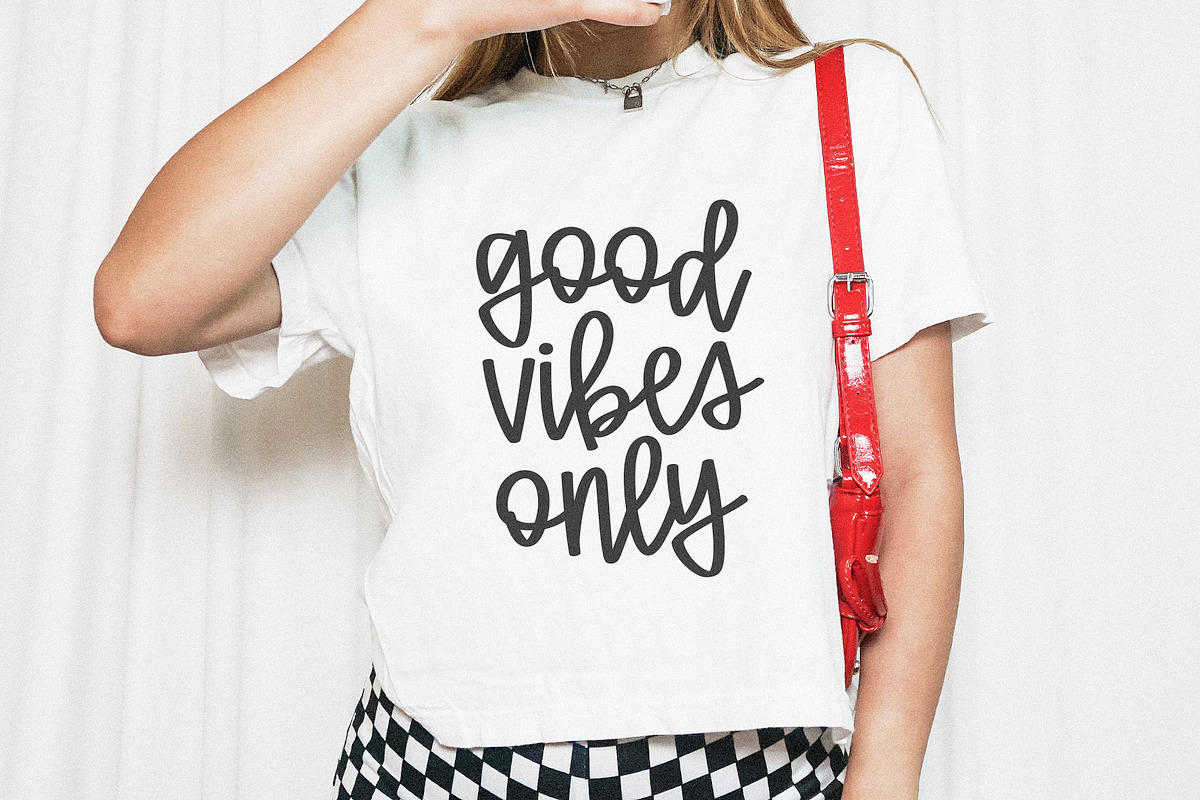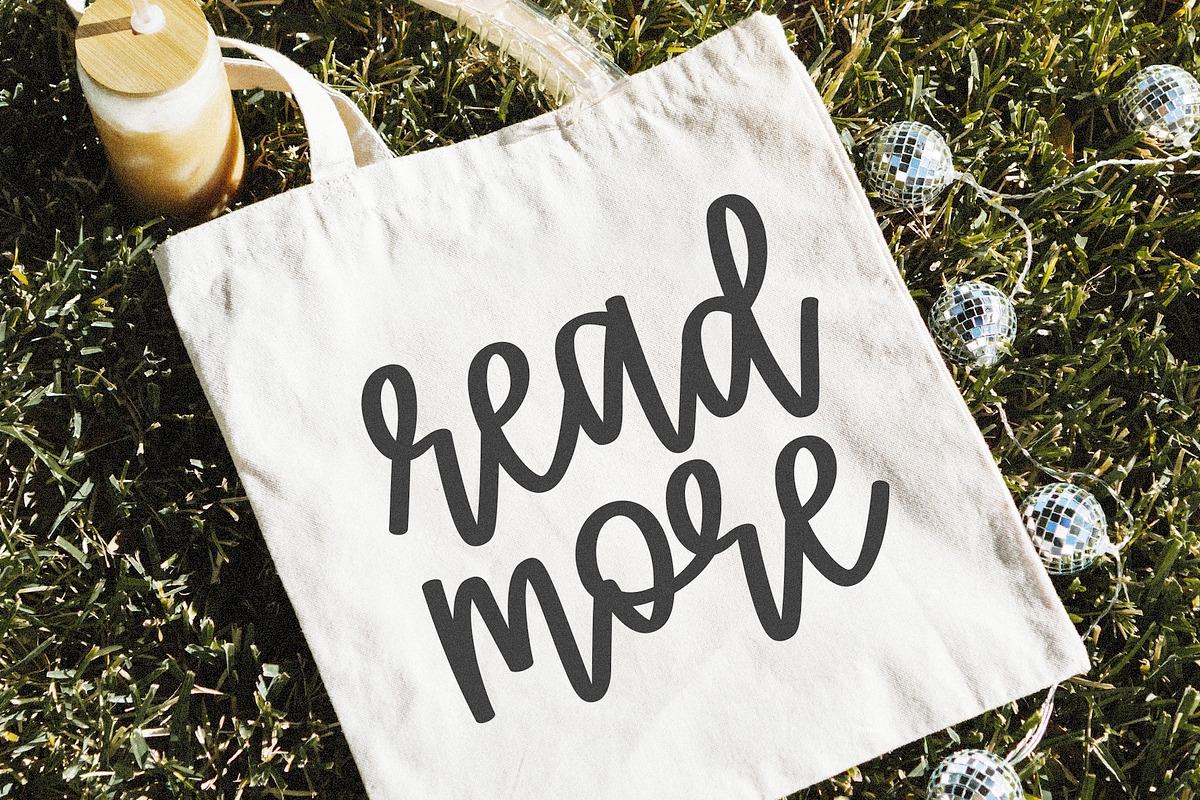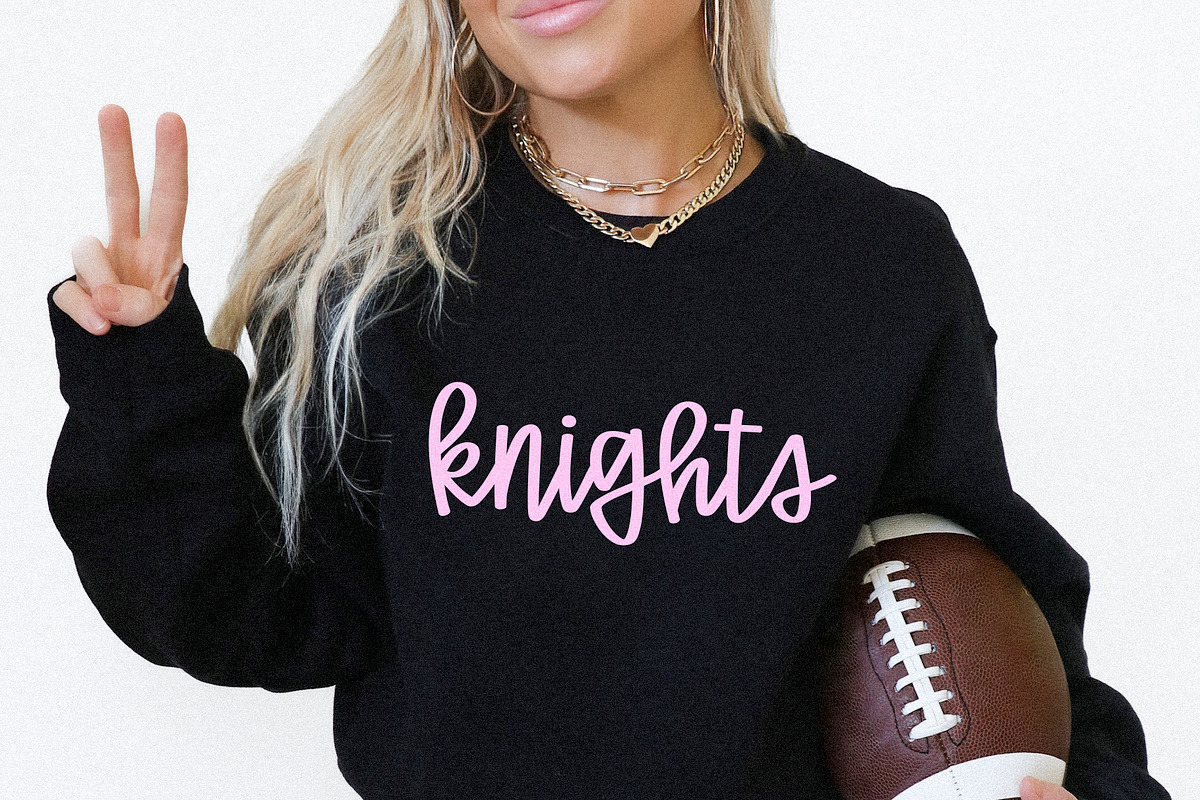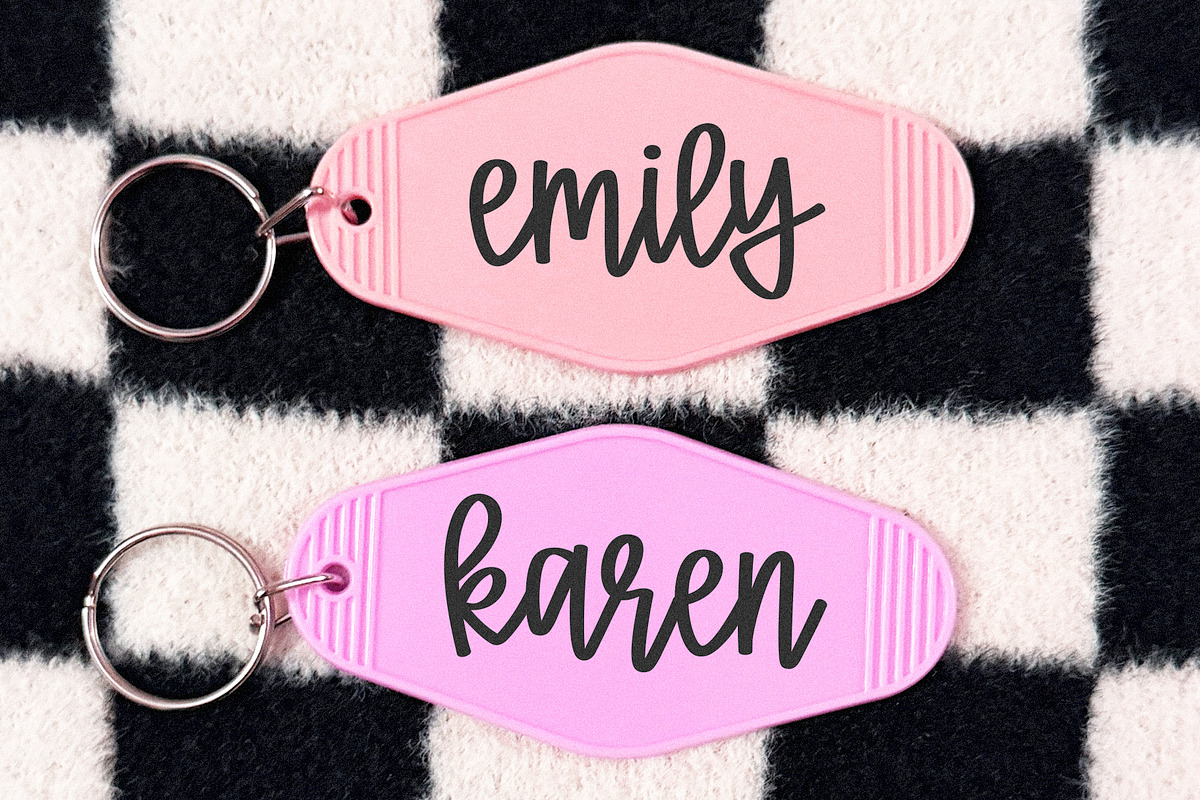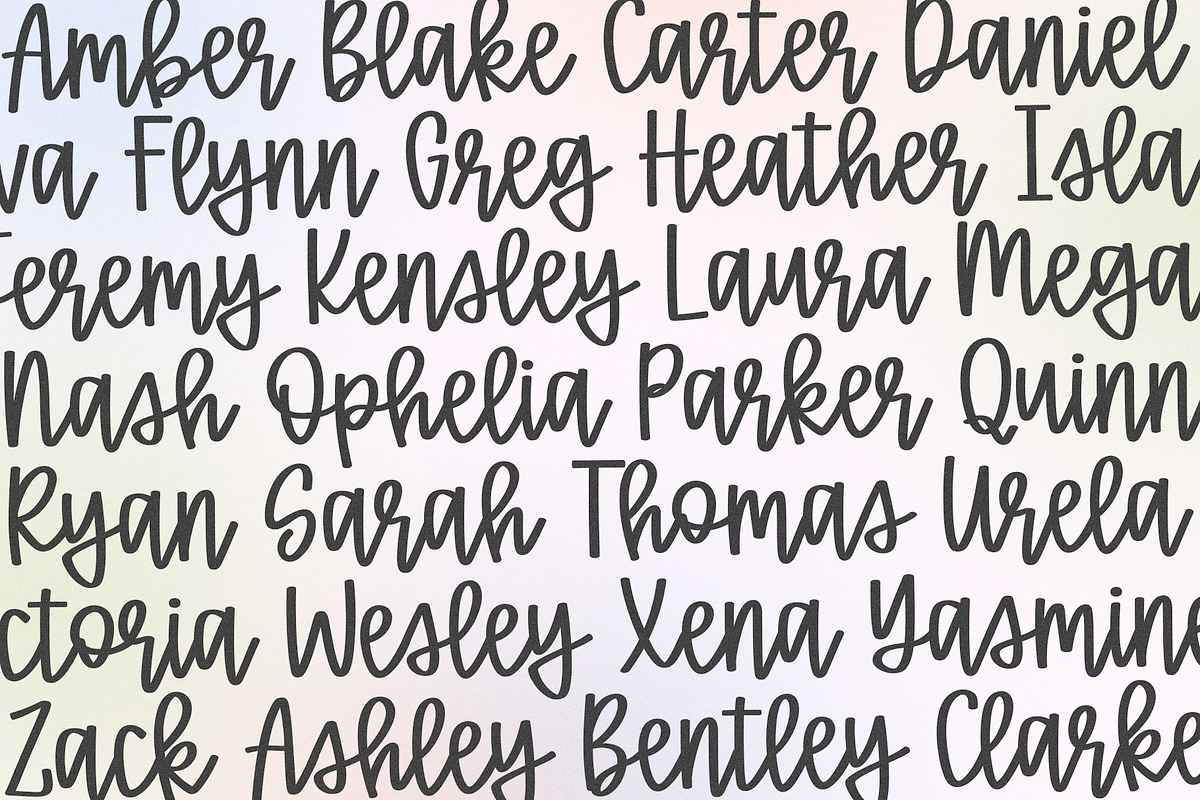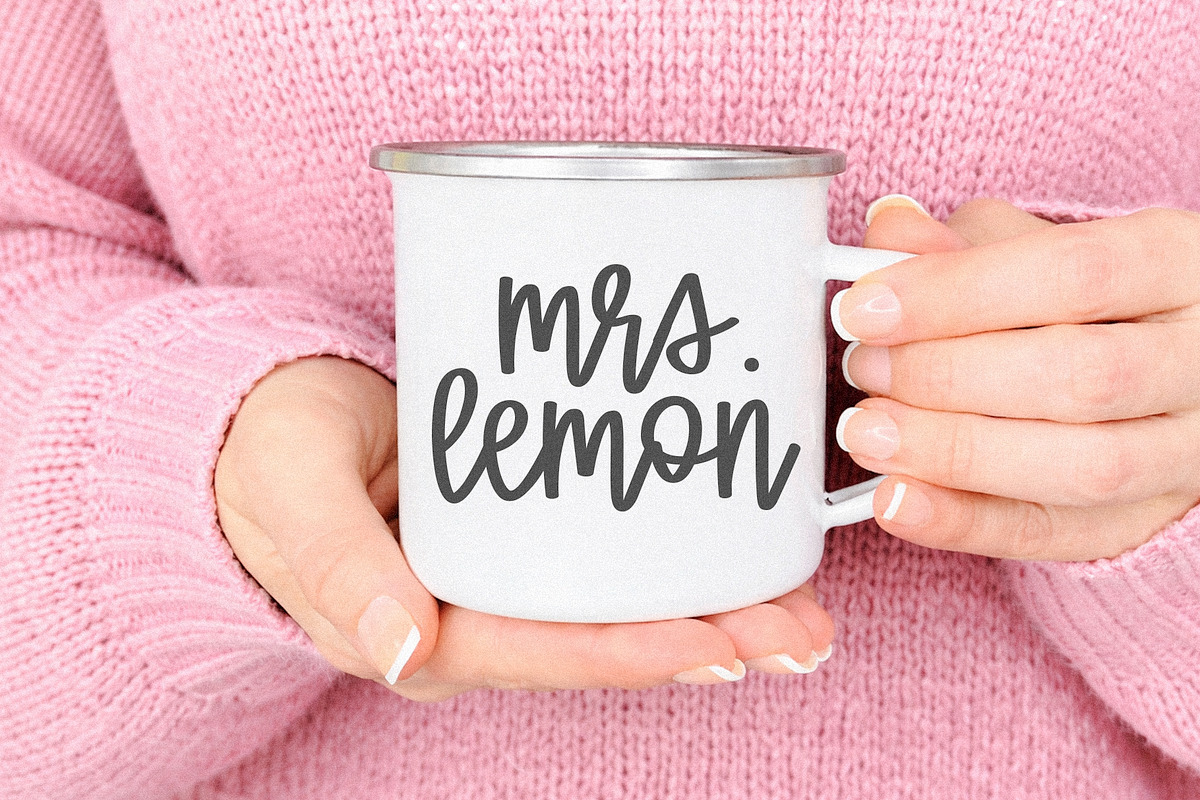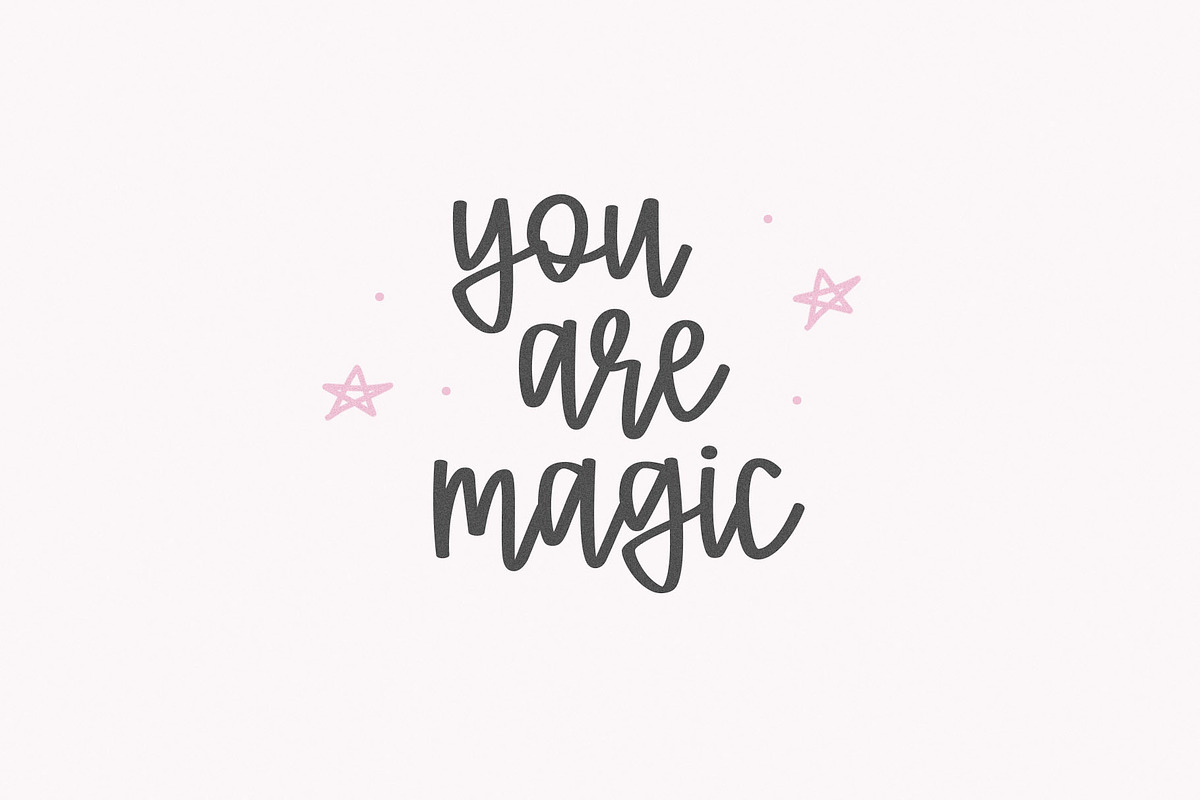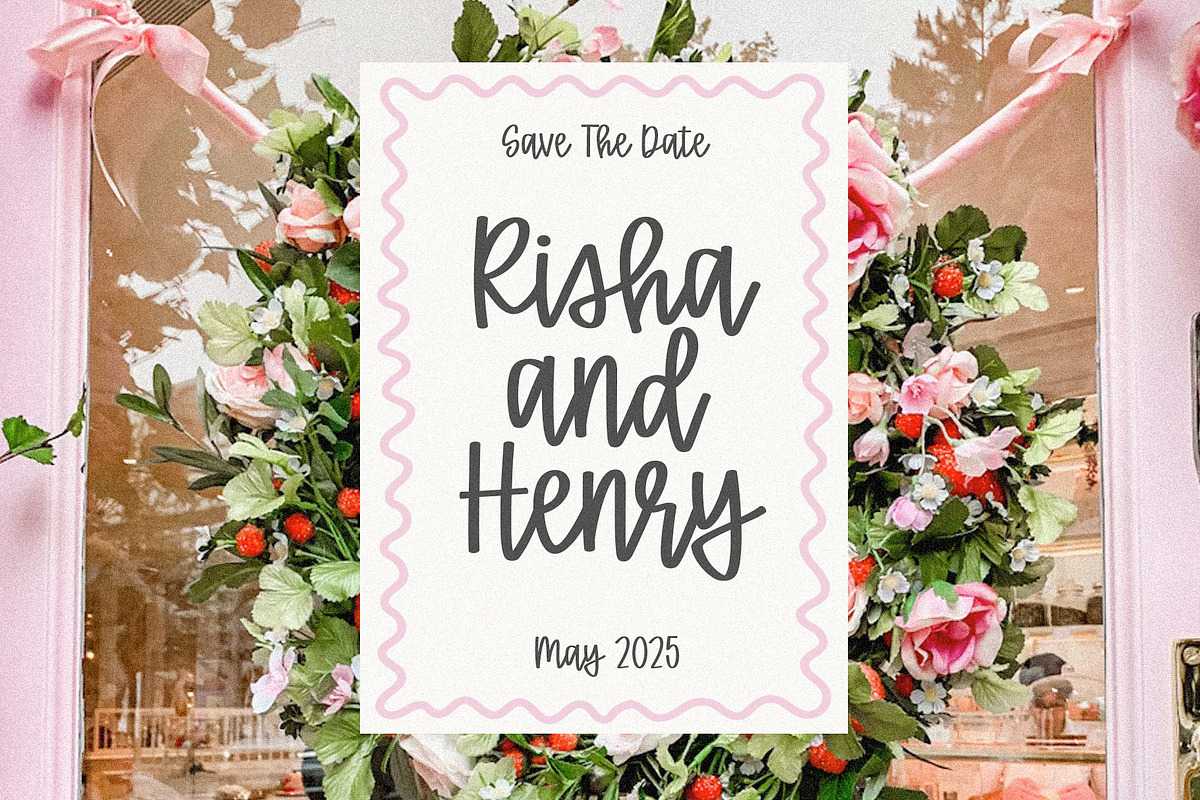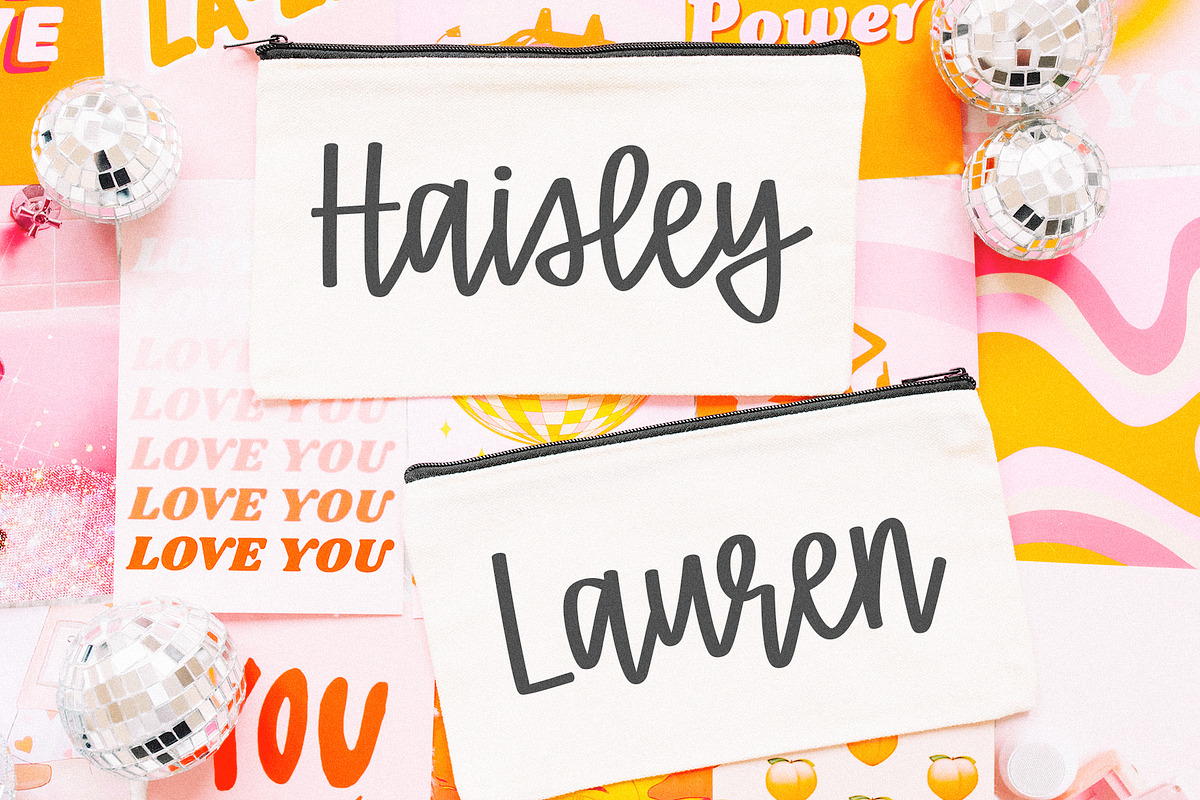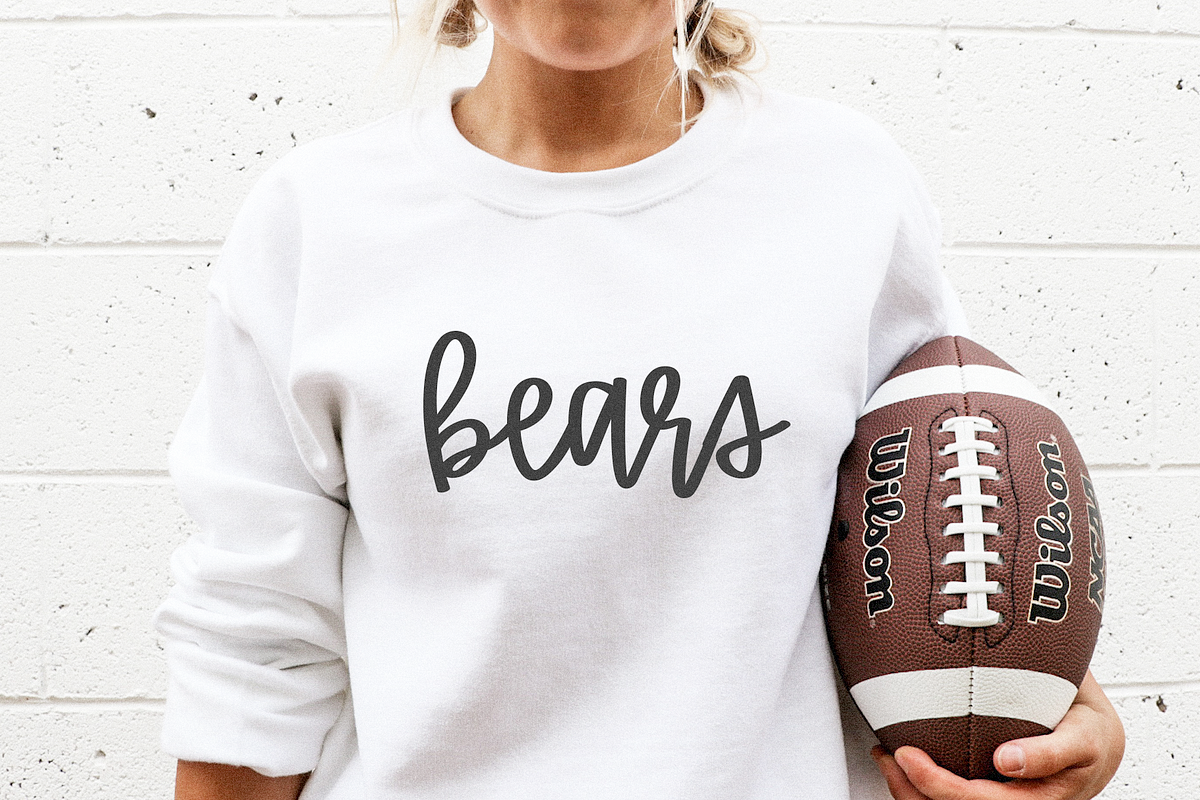
Karley Jean | Preppy Script Font
Karley Jean is a cute handwritten script font!
This font is perfect for crafts, logos, cricut, canva, painted banners, teachers, lasers and more!